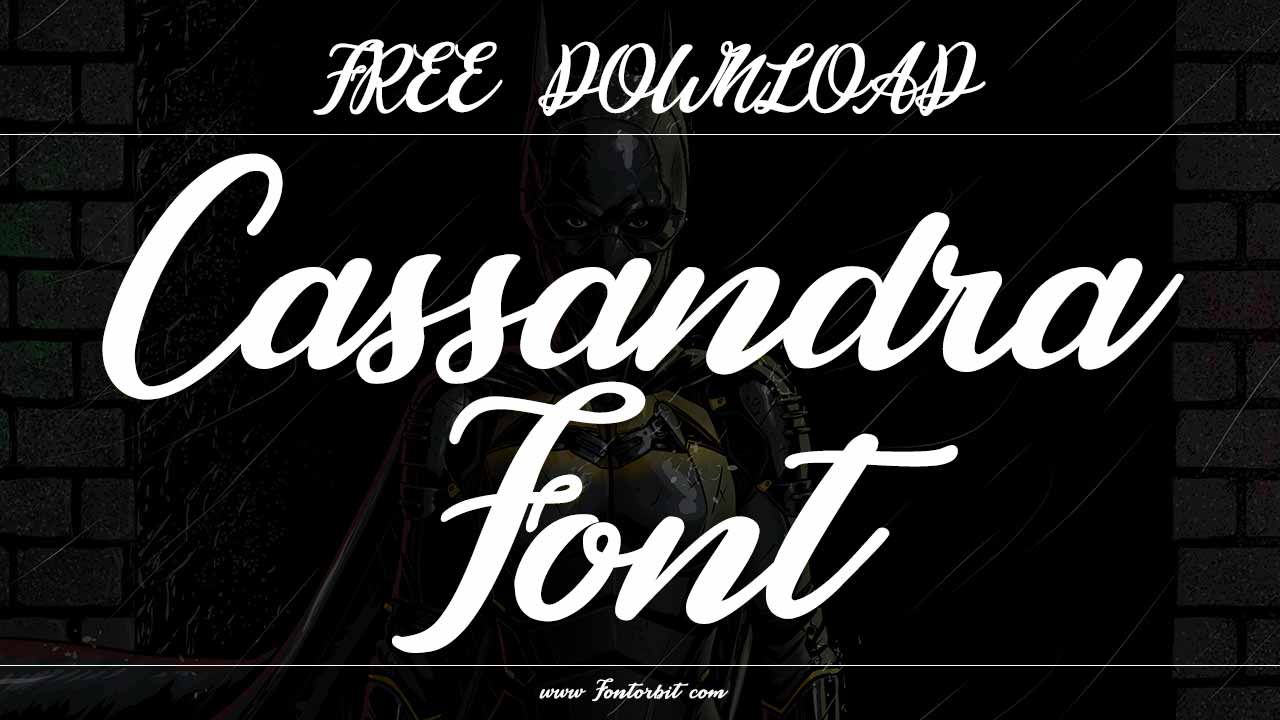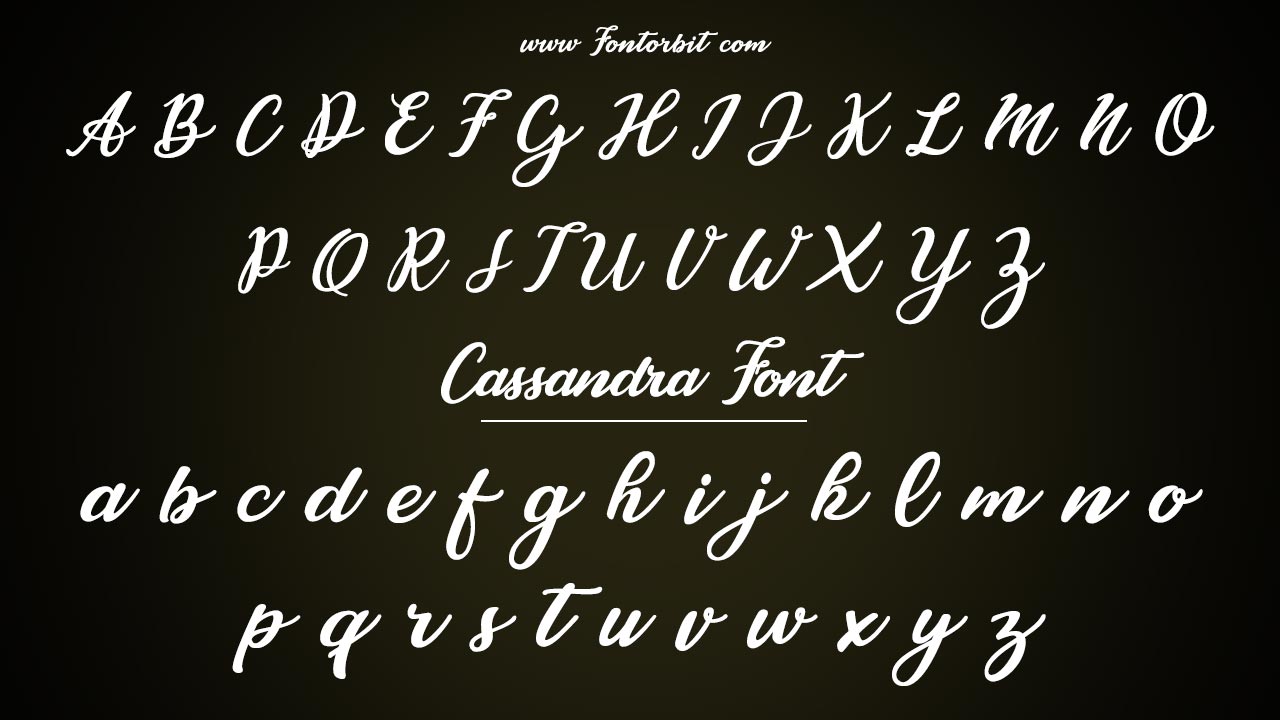
Cassandra Font, designed by Billy Argel, is an elegant handwritten script font known for its artistic and vintage appeal. This font is widely used in branding, tattoo designs, printed materials, and web projects. The Cassandra Personal Use Font is available for free, while the full commercial font set requires a license for professional use.
Cassandra Font Family Styles
Cassandra Font is available in one style, featuring a regular font weight that enhances its handwritten charm. It includes:
- Cassandra Personal Use Regular
- Wide Capitals & Narrow Ones
- Bold Weights & Ligatures
Key Features
- Handwritten Design – Perfect for creating an artistic, personal touch.
- Character Map & Ligatures – Includes wide capital letters, narrow S, and stylish ligatures.
- Versatile Usage – Great for branding, tattoo design, posters, invitations, and printed materials.
- Inspired by Adolphe Mouron Cassandre – Paying homage to the iconic designer’s vintage typography.
Where to Use Cassandra Font
Cassandra Font is perfect for various projects, including:
- Branding – Logos, business cards, packaging.
- Tattoo Designs – Elegant script for detailed body art.
- Printed Materials – Posters, brochures, certificates.
- Website & Digital Use – Headers, banners, and social media graphics.
- School & Personal Projects – Creative text presentations.
Cassandra Font vs. Similar Fonts: Comparison
| Feature | Cassandra Font | Similar Fonts (Suwa, Acratica, Petitinho) |
| Style | Handwritten Script | Handwritten & Calligraphy |
| Ligatures & Alternates | Yes | Yes |
| Suitable for Branding | Yes | Yes |
1. Who designed Cassandra Font?
Cassandra Font was created by Billy Argel, a designer known for his artistic and decorative script fonts.
4. Is Cassandra Font suitable for branding?
Yes, it’s ideal for branding, logos, and professional designs.
5. Does Cassandra Font support ligatures?
Yes, the font includes ligatures and stylistic alternates for unique text styling.
6. What are some similar fonts to Cassandra?
Some similar fonts include Suwa, Acratica, Petitinho, and Julius Black.
8. Is Cassandra Font good for tattoo designs?
Yes, its elegant and artistic script font style makes it perfect for tattoo designs.